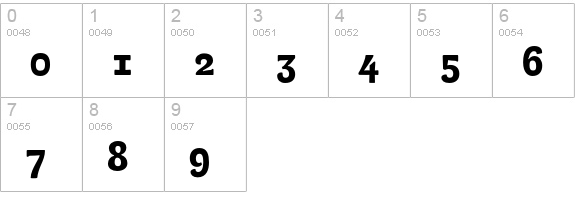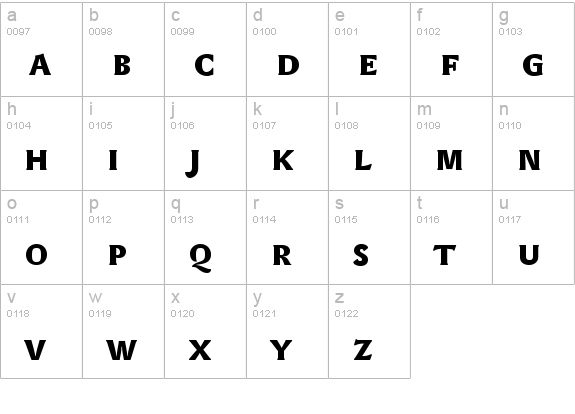
LexiconGothicSCOSF-Bold Font Details
LexiconGothicSCOSF-Bold is a strong, high-contrast variant in the LexiconGothicSCOSF typeface family \xE2\x80\x94 well suited to headlines, attention-grabbing titles, and strong calls-to-action.
LexiconGothicSCOSF-Bold is a captivating and edgy font that seamlessly blends the elegance of traditional gothic typography with a modern twist. Its bold and assertive letterforms make a powerful statement, perfect for grabbing attention and leaving a lasting impression. The sharp angles and intricate details of each character give it an alluring and mysterious quality, making it an ideal choice for projects that demand a touch of sophistication and intrigue. This font exudes a sense of confidence and individuality, making it the perfect choice for any creative endeavor, whether it be designing striking logos, eye-catching headlines, or adding a touch of drama to your website or social media graphics. Its versatility allows it to effortlessly adapt to various design styles, from the sleek and minimalistic to the bold and daring. One of the best parts about LexiconGothicSCOSF-Bold is that it is freely available to download at FontsMarket.com. This means that you can easily incorporate this striking font into your projects without any additional cost. Its accessibility ensures that designers and enthusiasts alike can unleash their creativity without any limitations. So, if you're looking to make a bold statement with your typography, look no further than LexiconGothicSCOSF-Bold. Its unique blend of gothic elegance and contemporary flair will elevate your designs to the next level, leaving a lasting impression on anyone who encounters them. Download it today from FontsMarket.com and let your creativity run wild.